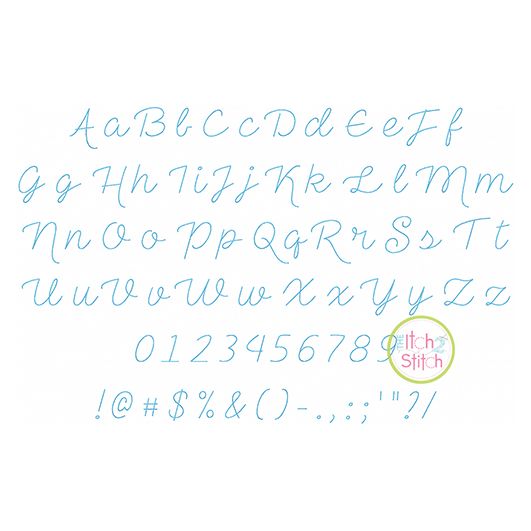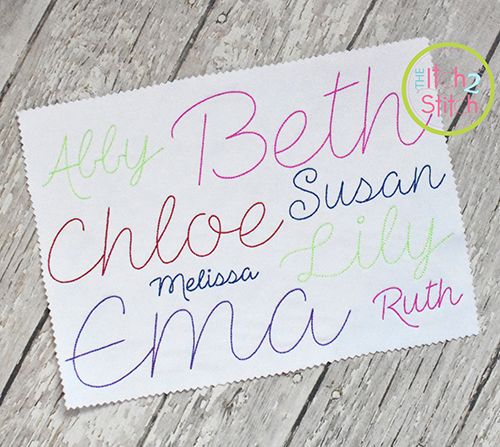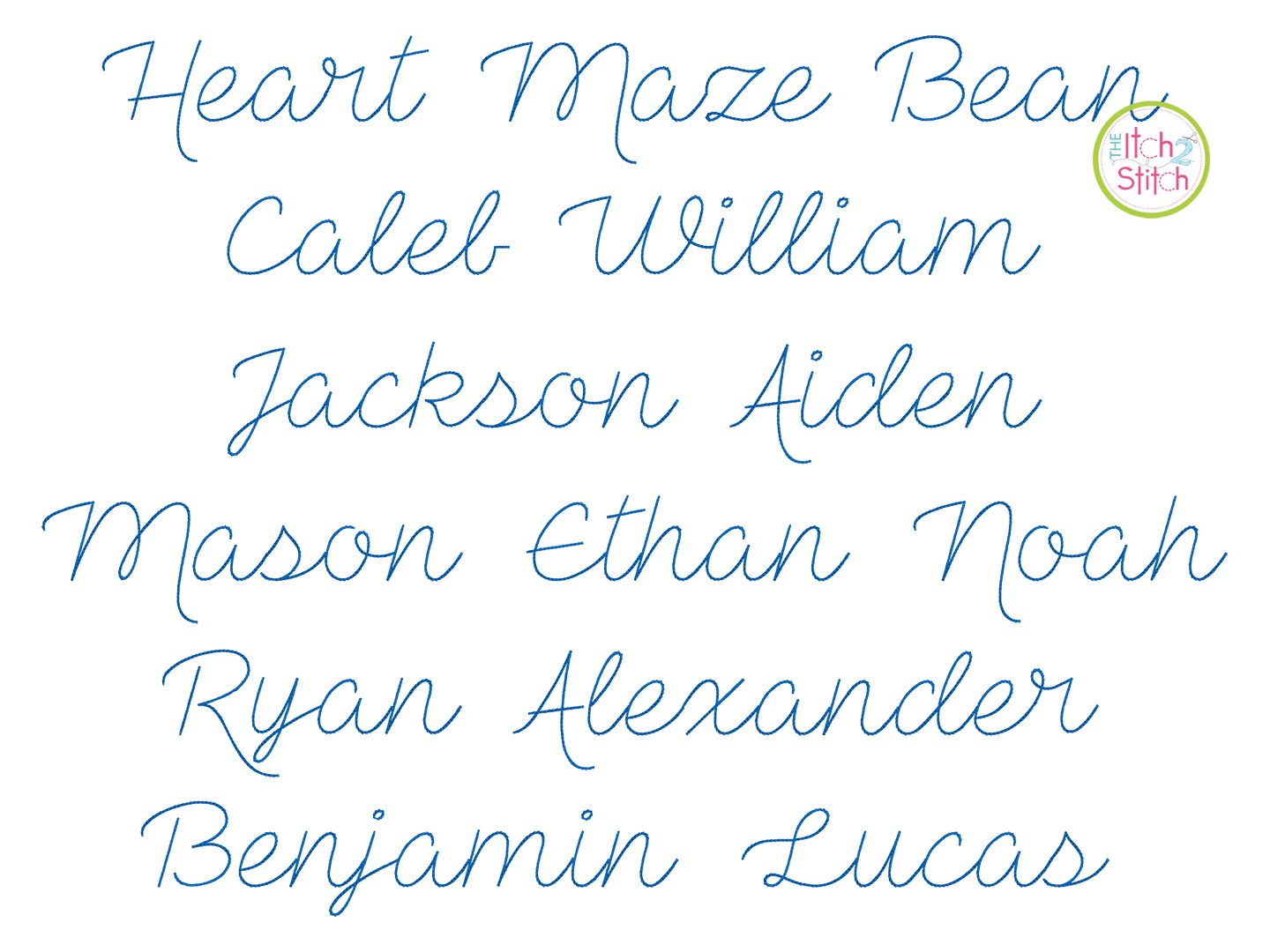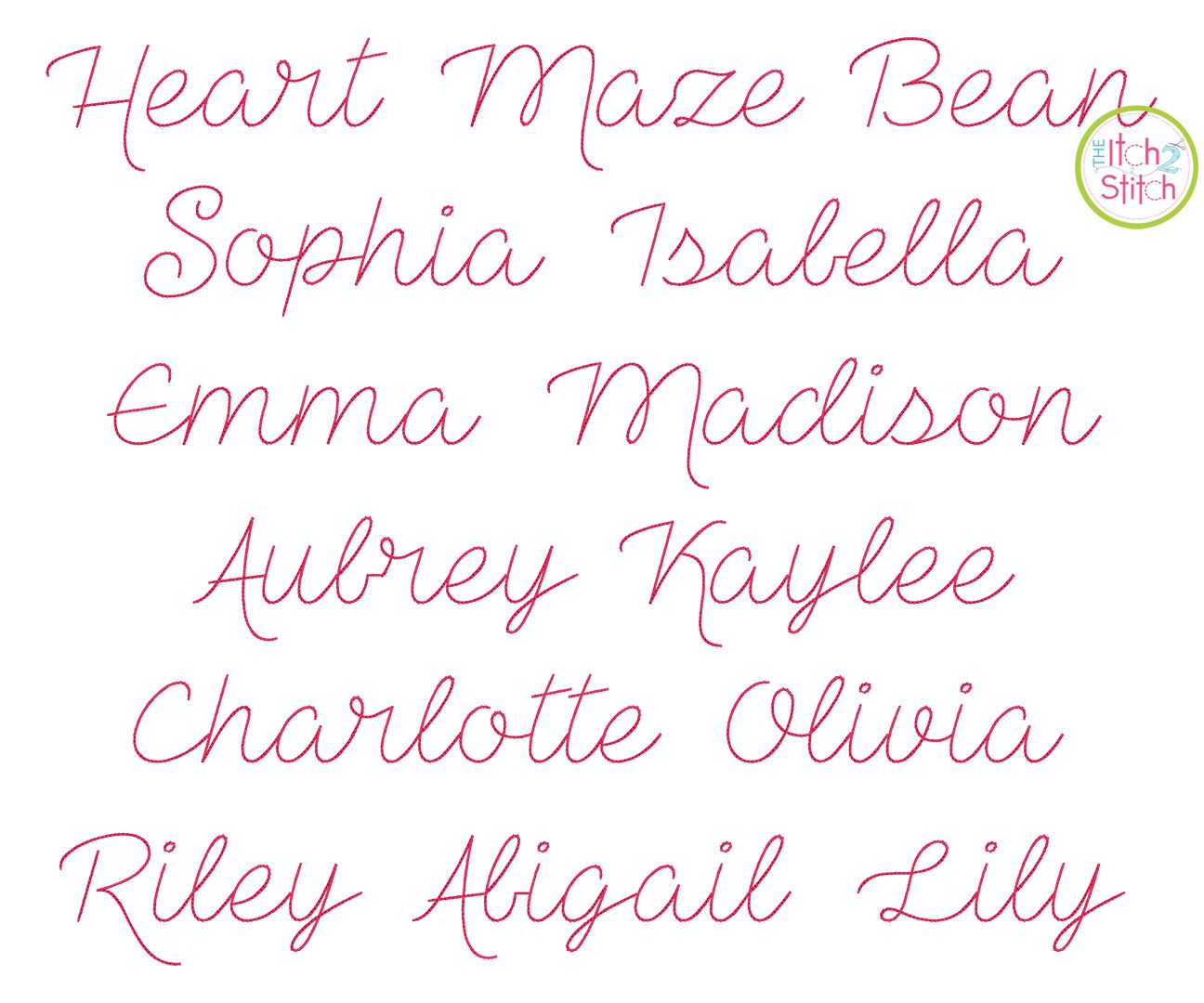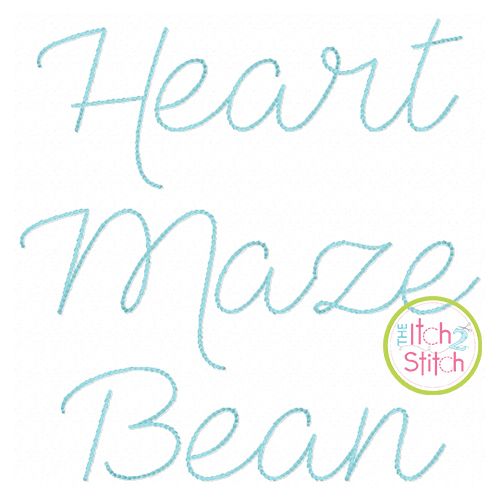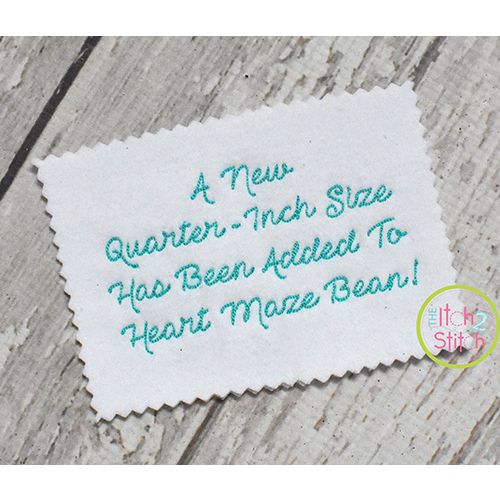
Heart Maze Bean Stitch Embroidery Font
Sizing is based on the capital C, and all other characters are sized proportionally to that. Since many of the capital letters are designed to descend below the baseline, their design height may be taller than the stated size. Consequently, a few capital letters from the 2", 2.25" and 2.5" sizes and many letters from the 2.75" and 3" sizes do not fit in a 4x4 hoop; a larger hoop is required.
This is a five-pass backstitch font originally designed to stitch on fabric, NOT card stock. Another version, Heart Maze Greeting Card Font, designed and tested on watercolor paper is sold separately.